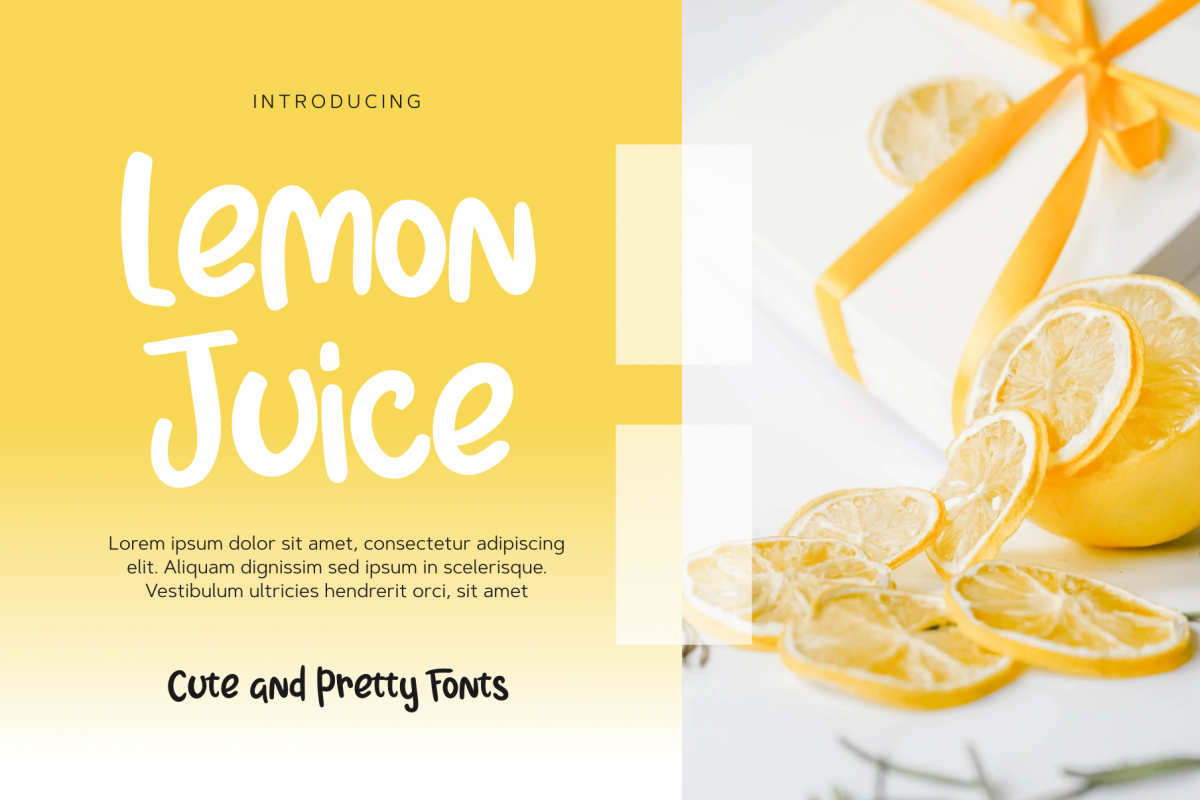
Lemon Juice
Introducing my Lemon Juice, cute and pretty font. It's very well suited for product labels, fashion and cloting product, and other type design. Thank you..